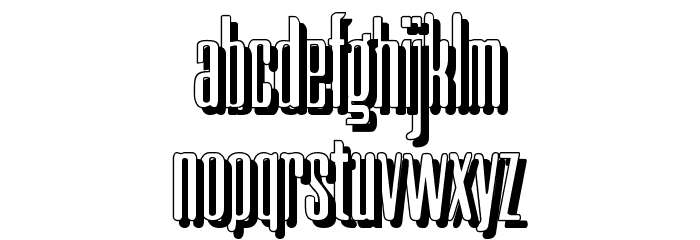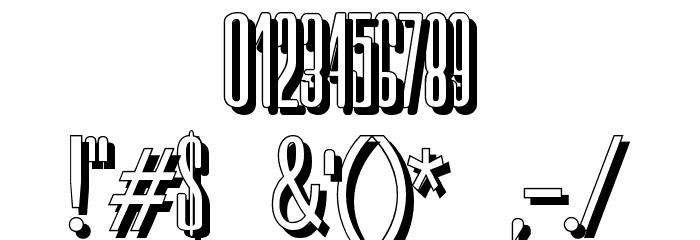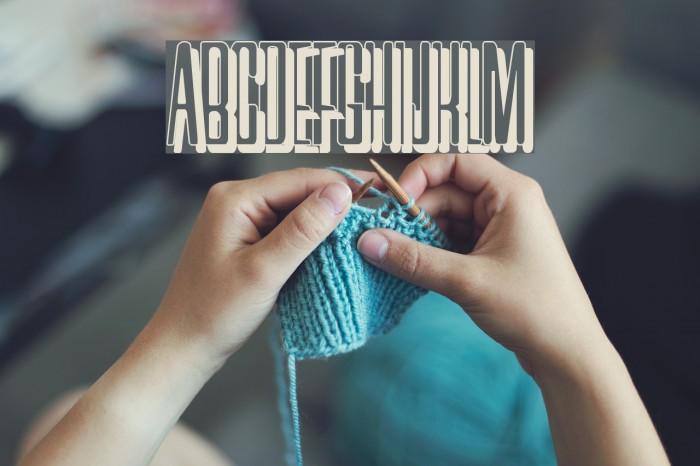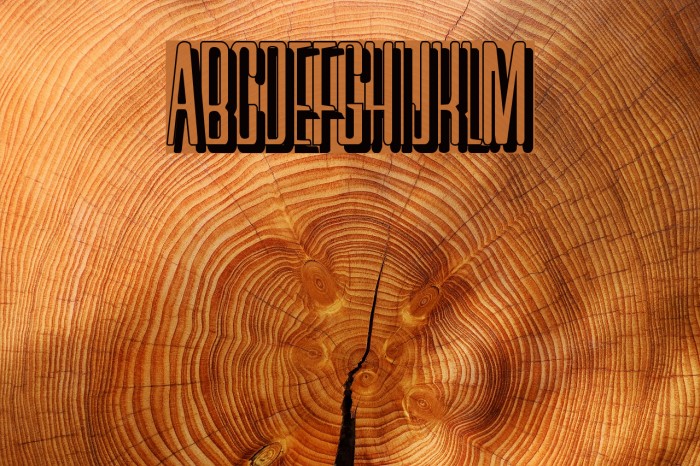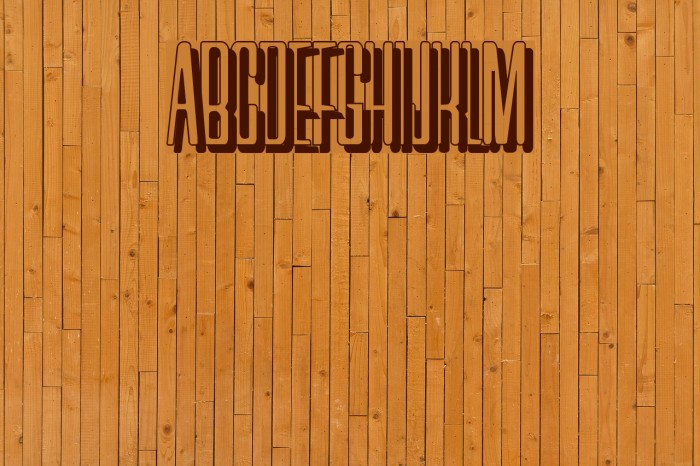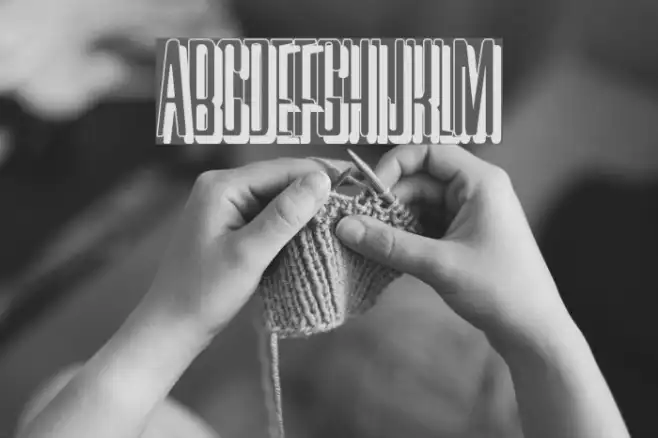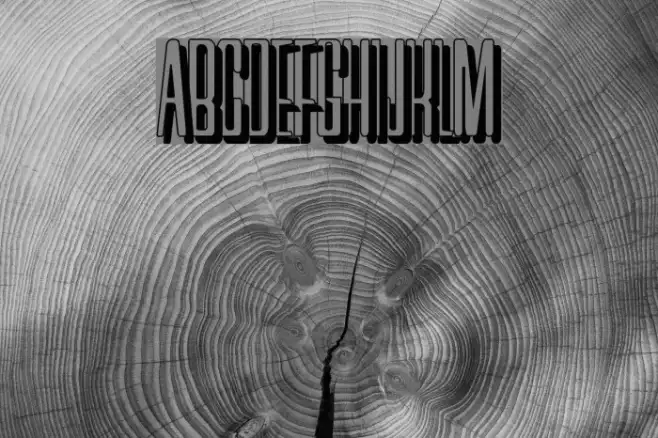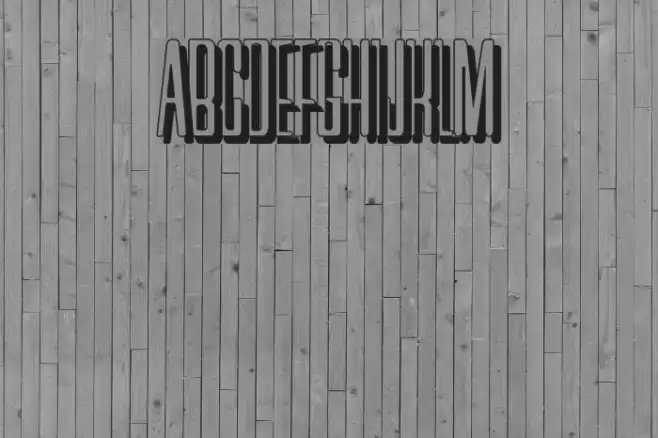
Neretta Font
This font features a bold, three-dimensional appearance with a shadow effect that gives it a striking, impactful look. The uppercase and lowercase letters are tall and narrow, with sharp, angular edges that convey a sense of modernity and strength. The numbers and special characters maintain this consistent style, ensuring a cohesive visual identity. The font's unique design makes it stand out, with a high level of detail in the shadowing that adds depth and dimension. It is particularly well-suited for projects that require a bold statement or a modern, edgy aesthetic.
A bold, three-dimensional font with sharp, angular edges and shadow effects.
- Proposed Projects: Ideal for posters, headlines, logos, and branding materials that need a strong visual impact.